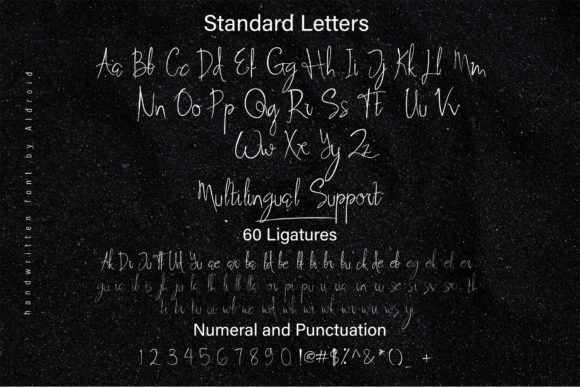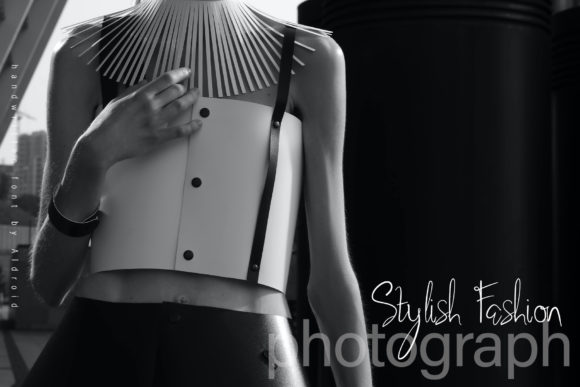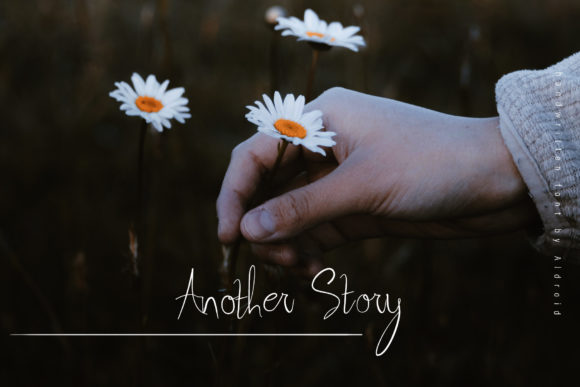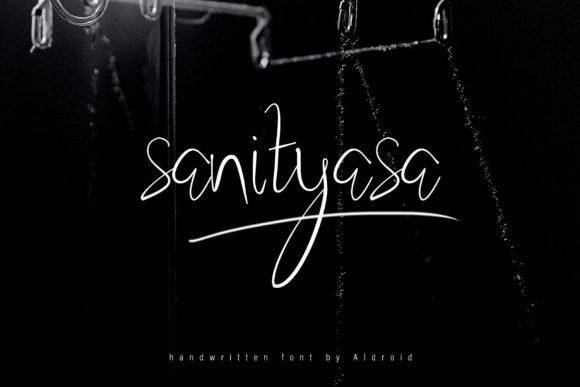
Introduction to Sanityasa Font
Saniyasa is a beautiful handwritten font.
This font is about how one and another thing are string and attached About a letter binding to another letter, becoming a word that has a deeper meaning beyond what words can express.
Key Features of Sanityasa Font
Why Choose Sanityasa Font?